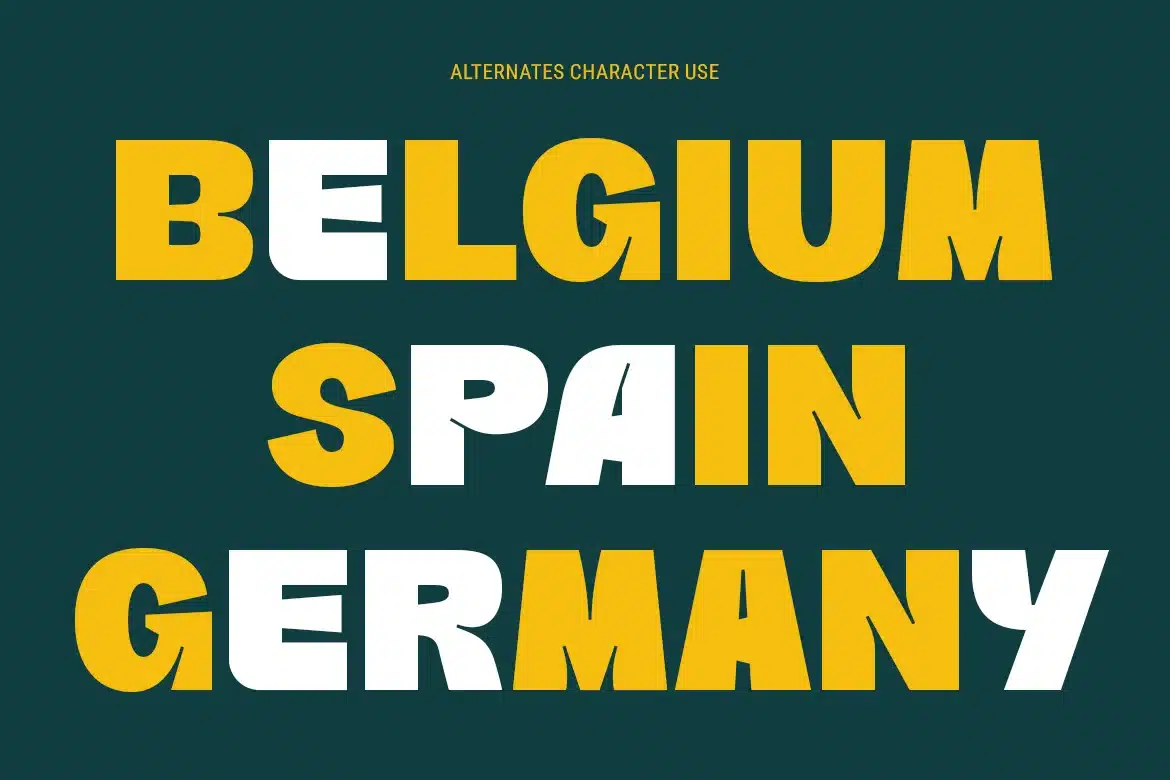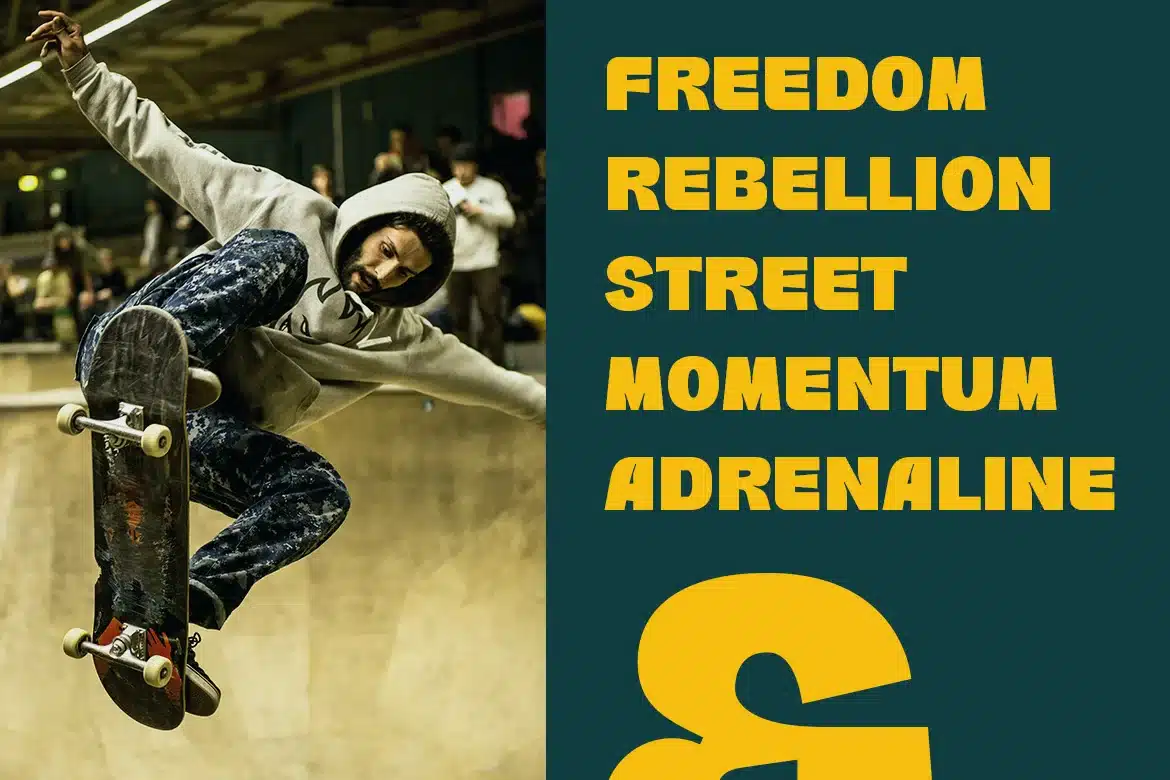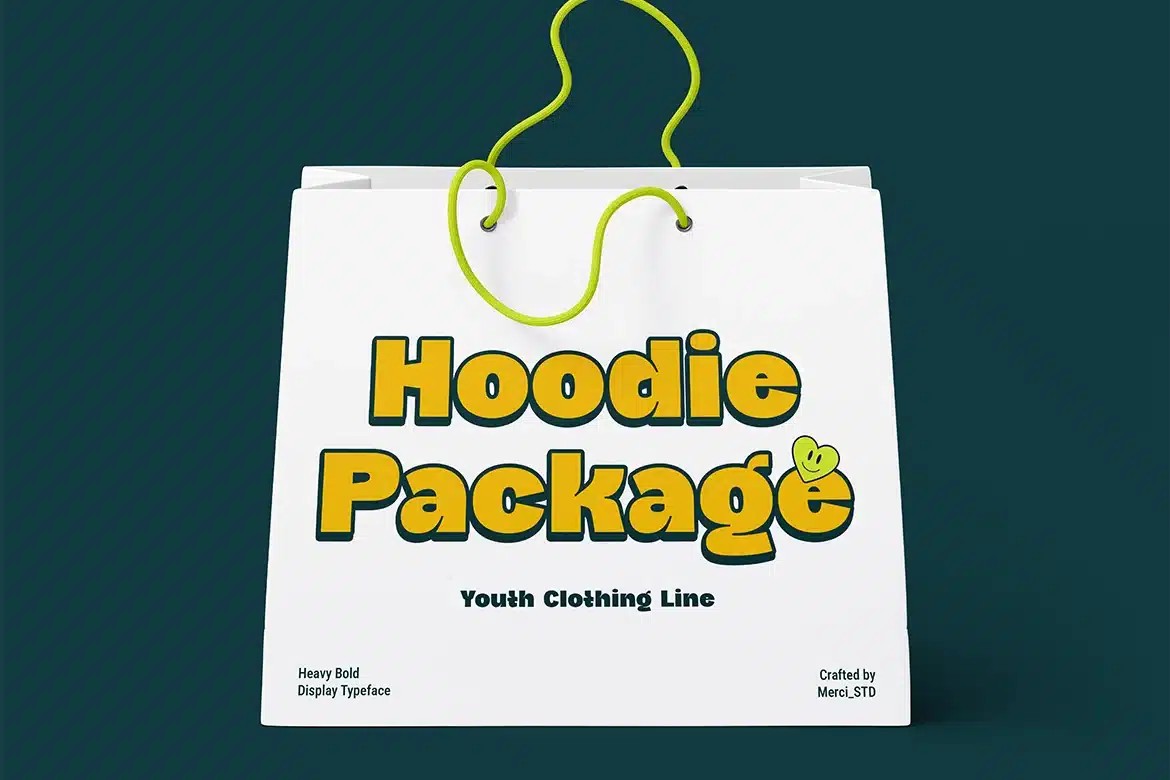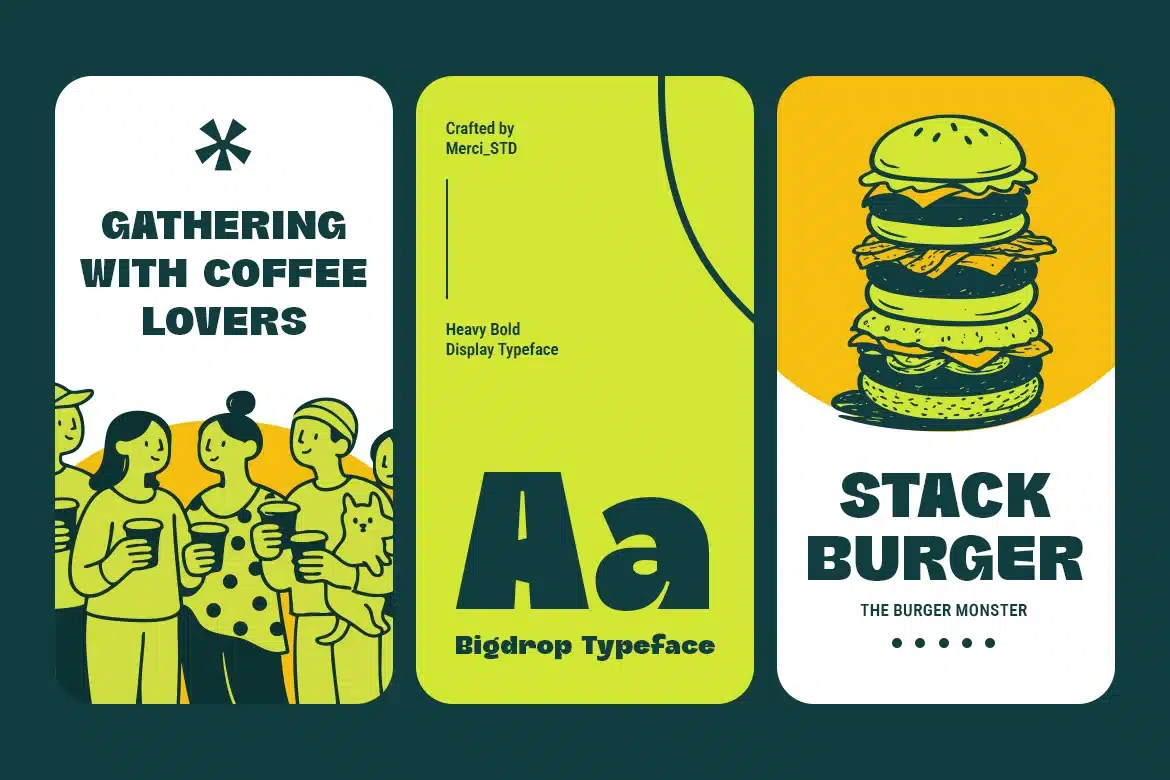
Bigdrop – Bold Display Font
Bigdrop is a heavy bold sans serif display font designed for maximum visual impact. With thick strokes and strong structure, this font is perfect for headlines, posters, branding, sports graphics, and bold modern designs that demand attention.
- Uppercase Letters
- Ligature & Alternate Character
- Unique Hand-Drawn Style